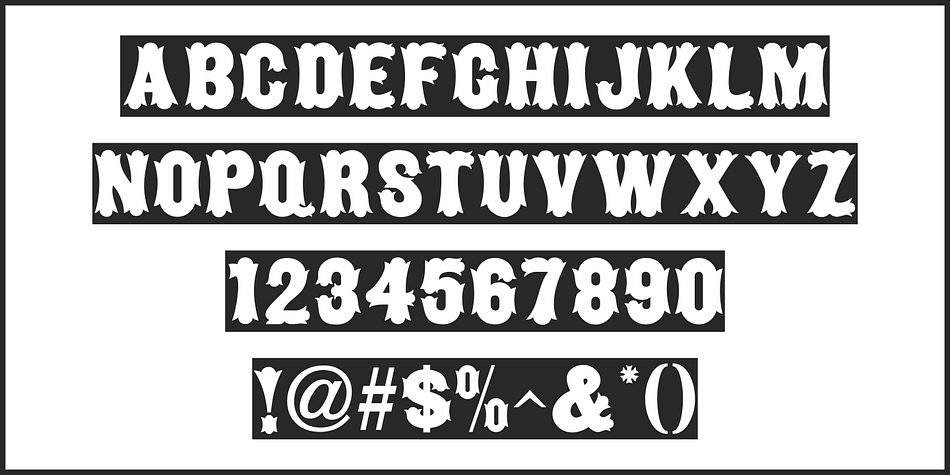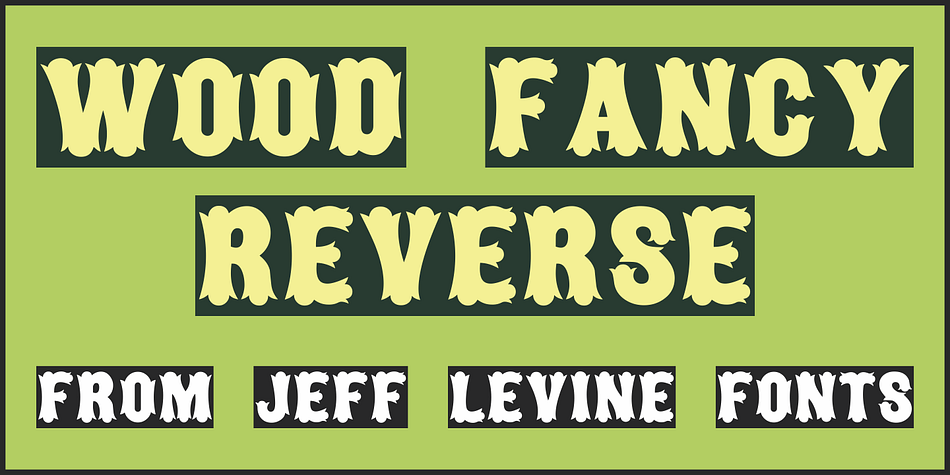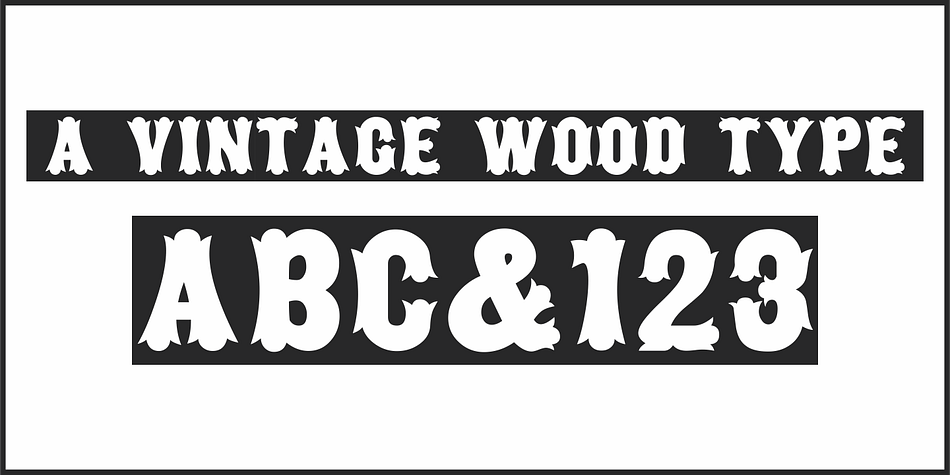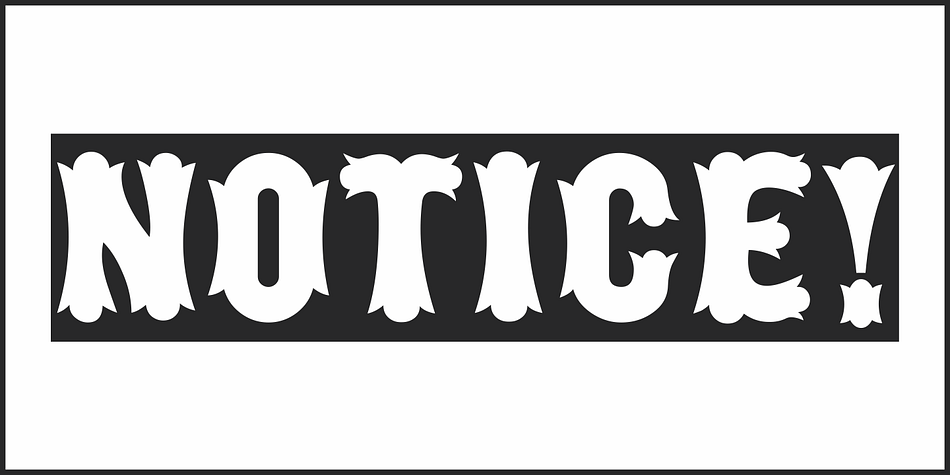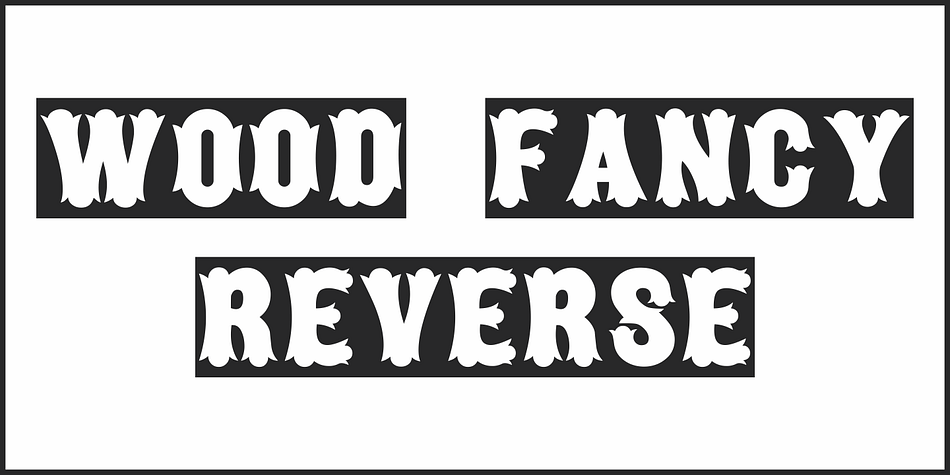
WOOD FANCY REVERSE JNL
Designed by Jeff Levine, Wood Fancy Reverse JNL is a wood type font published by Jeff Levine Fonts.
Amongst some pages scanned and posted online of old wood type alphabets comes this lovely, ornamental design in a reversed style of white lettering on black rectangular boxes.
This classic set of wood type is now available digitally as Wood Fancy Reverse JNL.
There is a narrow blank box on the “less than” key for use as an end cap, and a wider blank box on the “greater than” key to use between words as a blank space if so desired.